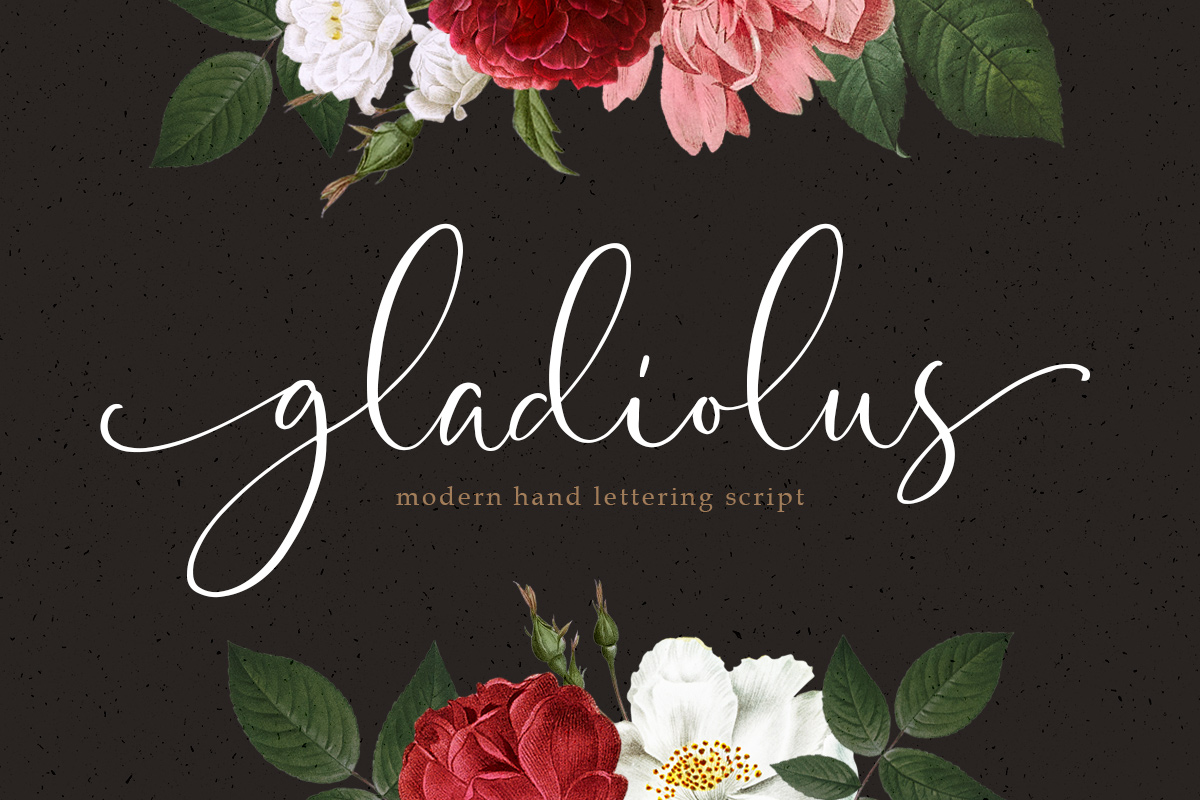
Gladiolus Script Font
Perfect for wedding invitations, branding, logos, greeting cards, and elegant editorial projects.
The Gladiolus Script Font excites designers with its beautifully flowing, sophisticated script style that adds a graceful and artistic touch to any design.
The Gladiolus Script Font Free Download is a refined script typeface featuring smooth curves and delicate strokes, ideal for luxury branding, invitations, and creative projects requiring a classy handwritten feel.
One of the key strengths of Gladiolus Script Font is its perfect balance between elegance and readability, ensuring your designs look stylish while remaining clear and inviting.
In branding, Gladiolus Script conveys sophistication, creativity, and warmth. It pairs excellently with soft color palettes, floral patterns, and minimalist layouts to create memorable and charming visuals.
For digital projects, this font enhances social media graphics, website headers, and digital invitations, giving your content a polished and artistic flair.